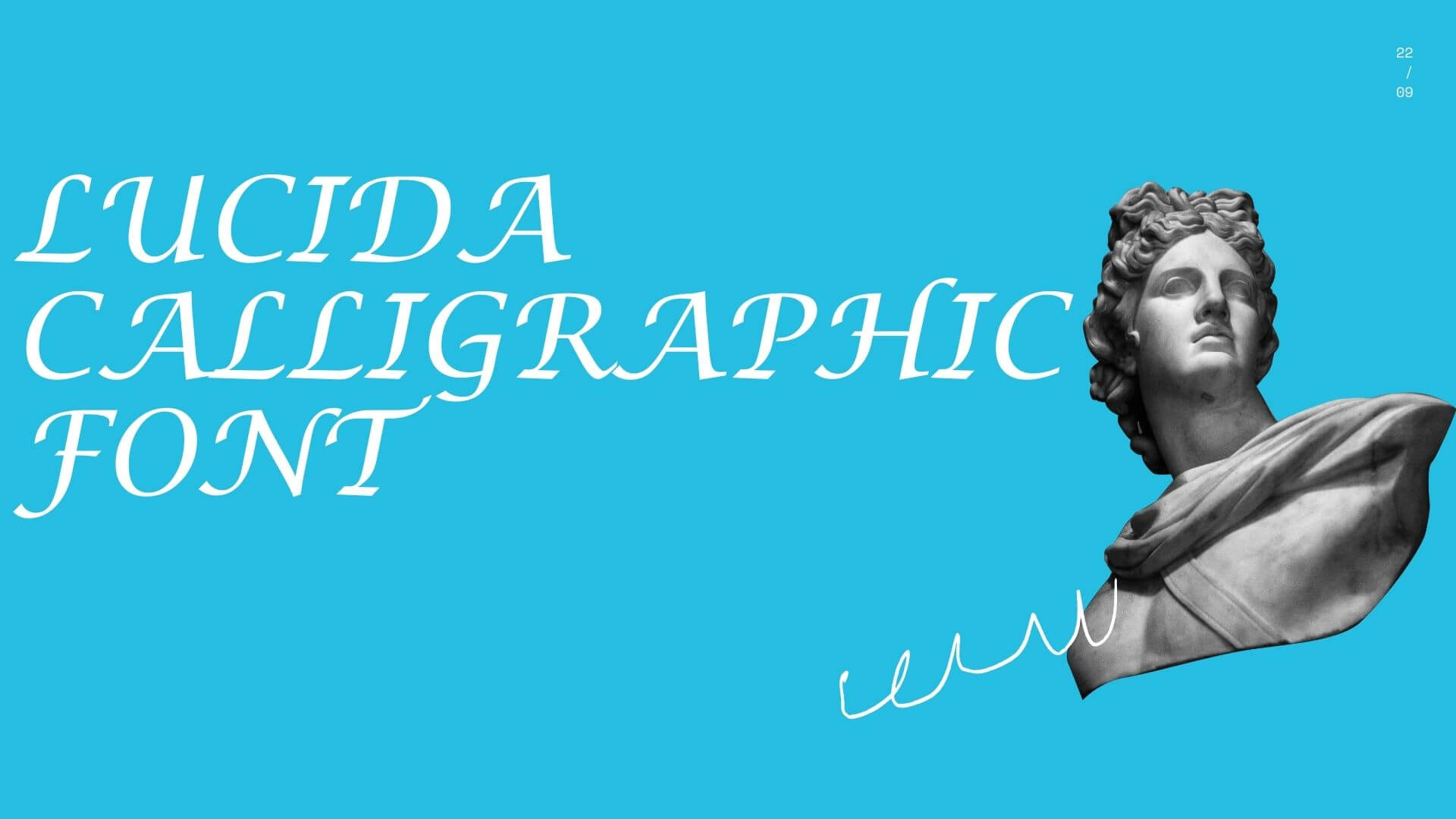
Lucida Calligraphy Font Family is an elegant script typeface, and Monotype company has assumed responsibility for its styling charge and distribution rights. Additionally, there are various versions of this typeface available.
The styling has been done by Kris Holmes and Charles Bigelow and this typeface is being used in many prominent places along with the pair of curvy font and this is worth appreciating typeface.
Lucida Calligraphic Font